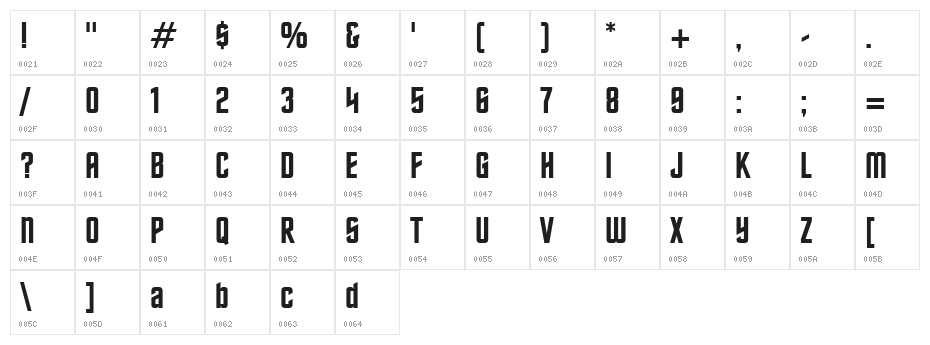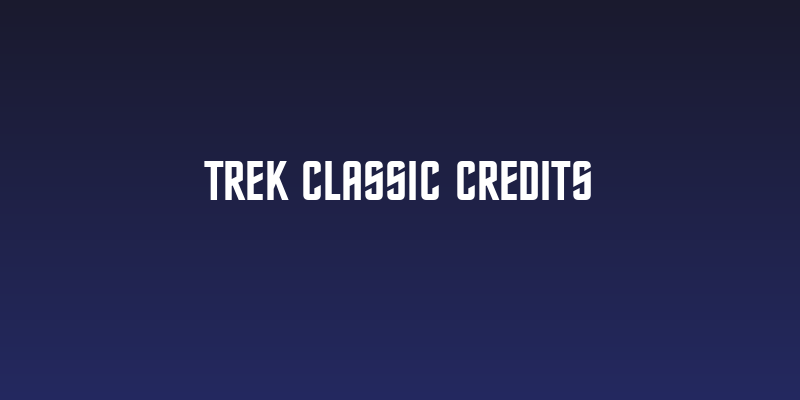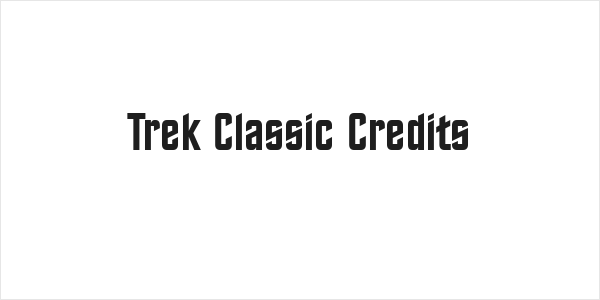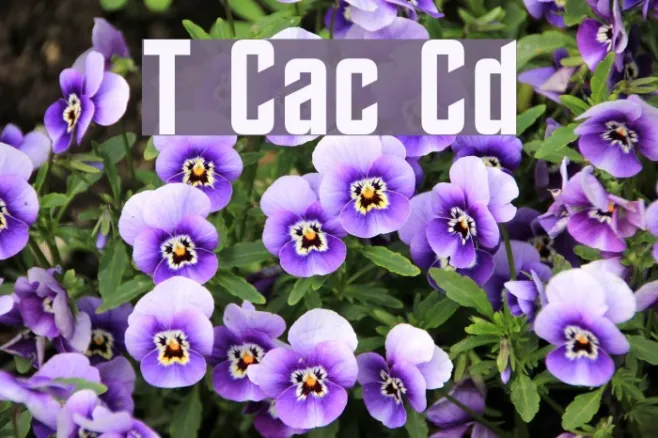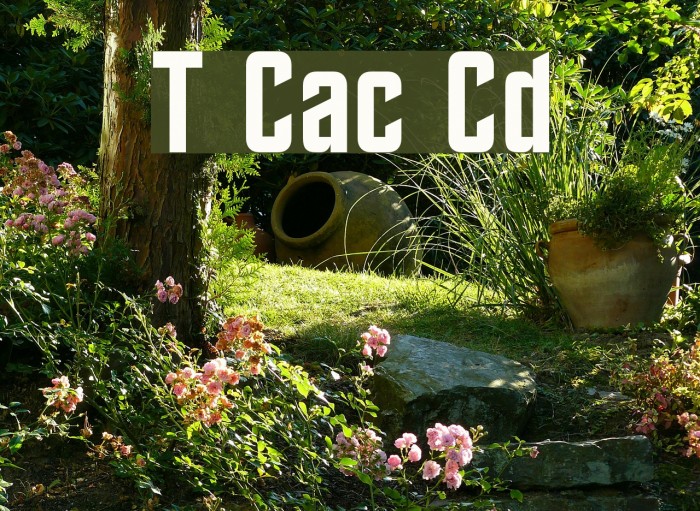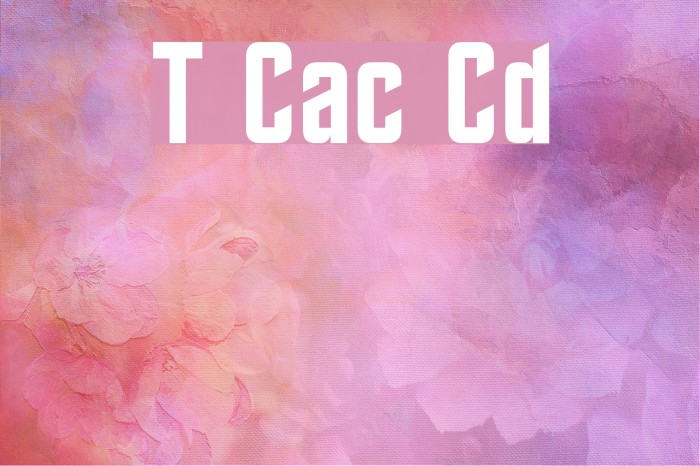
Trek Classic Credits Font
Trek Classic Credits Description
This font features a bold and futuristic design, characterized by its geometric and angular letterforms. The uppercase letters are tall and narrow, with a consistent stroke width that gives them a strong, impactful appearance. The lowercase letters maintain the same geometric style, with some unique elements such as the distinctive tail on the 'g' and the sharp angles on the 's'. The numerals are equally bold and maintain the same angular style, ensuring consistency across all characters. The special characters are designed to match the overall aesthetic, with clean lines and sharp angles. This font is ideal for projects that require a modern and dynamic look.
| Proposed Projects | Ideal for sci-fi themed designs, movie posters, video game graphics, and branding that requires a modern and bold aesthetic. |